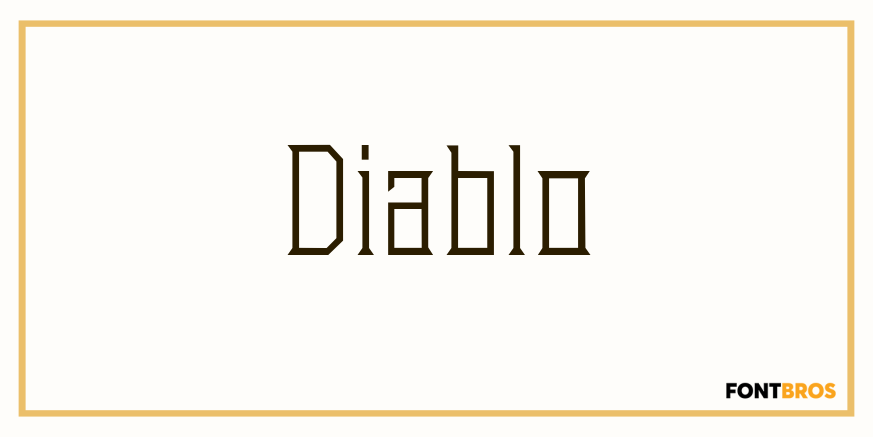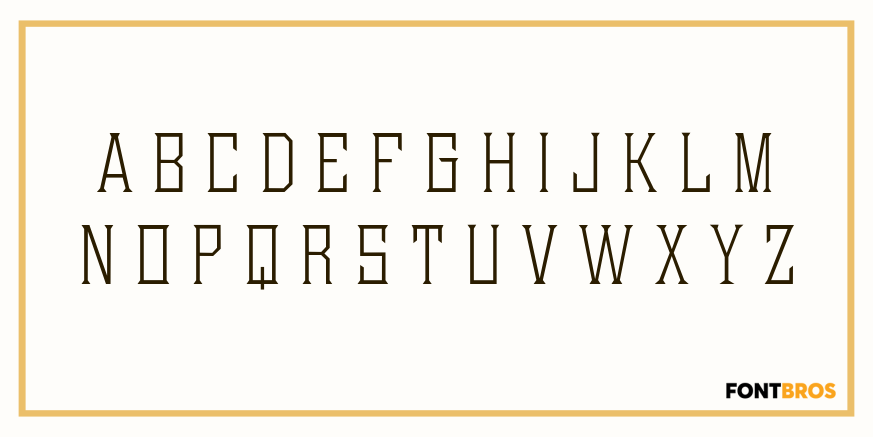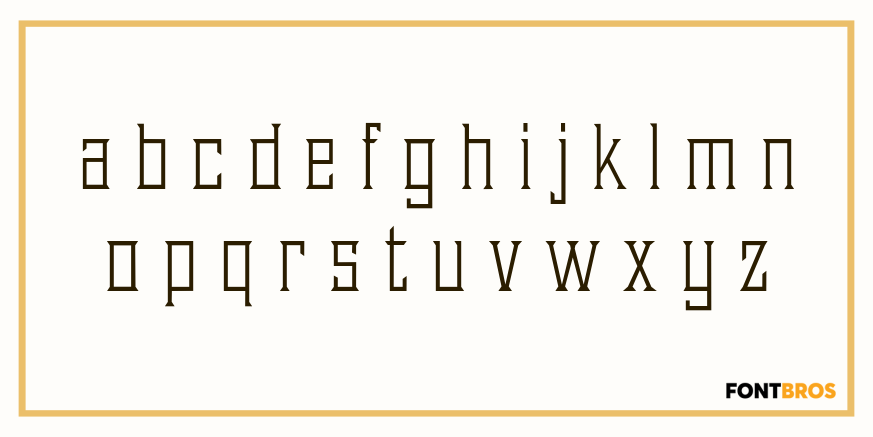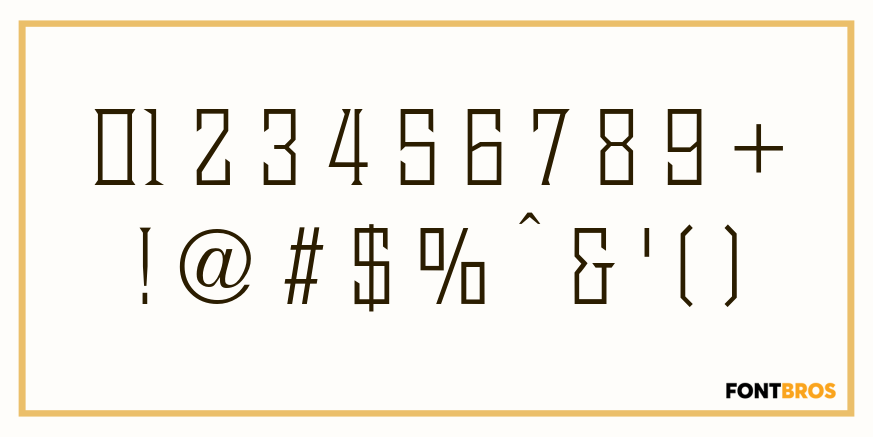
Diablo
Diablo Light was originally called Fabric and was issued by the Farmer, Little & Co. foundry in New York.
We liked everything about this font except for the lowercase 'g'. So we changed the offending letter, but for purity kept the original as an alternate.
We created a bold version of Diablo Light, with minor changes to accommodate the bolder stroke weight.
Although the original design is over a century old, the style seems to have an up-to-date look.